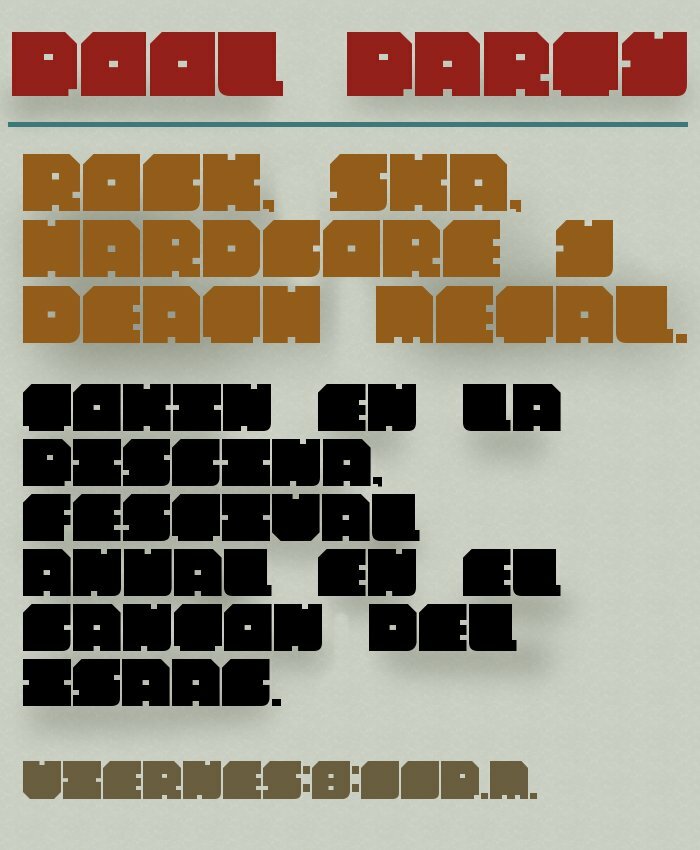
Pool Party by Isaac Pedraza is a free retro display font with massive, tightly packed letters and a blunt geometric silhouette. Small square openings and sharp corner cuts break up the dark shapes, lending them a playful arcade-machine edge.
Retro-futurist styling fits music posters and nightclub branding. The broad forms also suit swimwear packaging and festival merchandise, backed by a loud, compact profile. In these settings, the notched letters can become part of a logo or repeating graphic pattern.